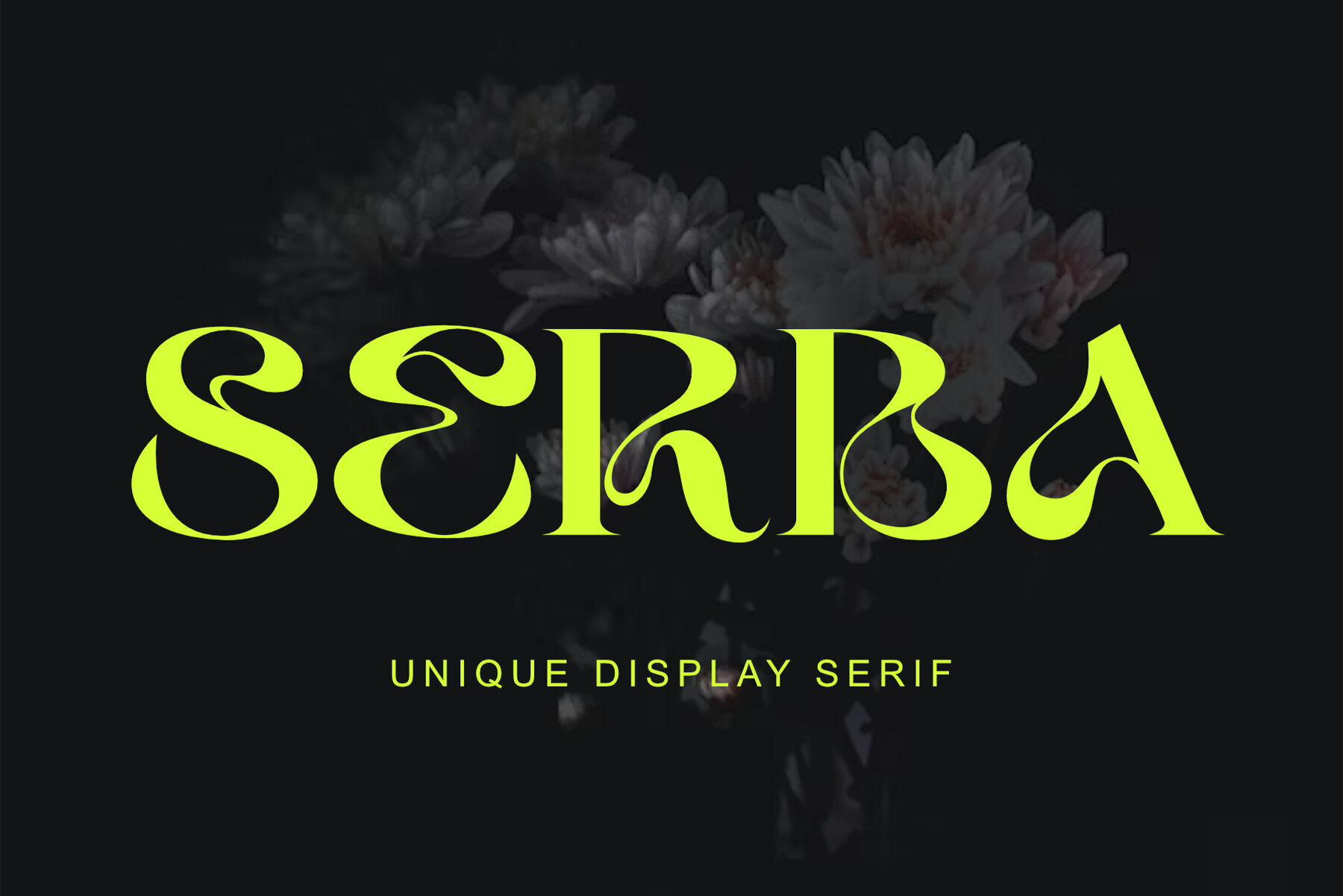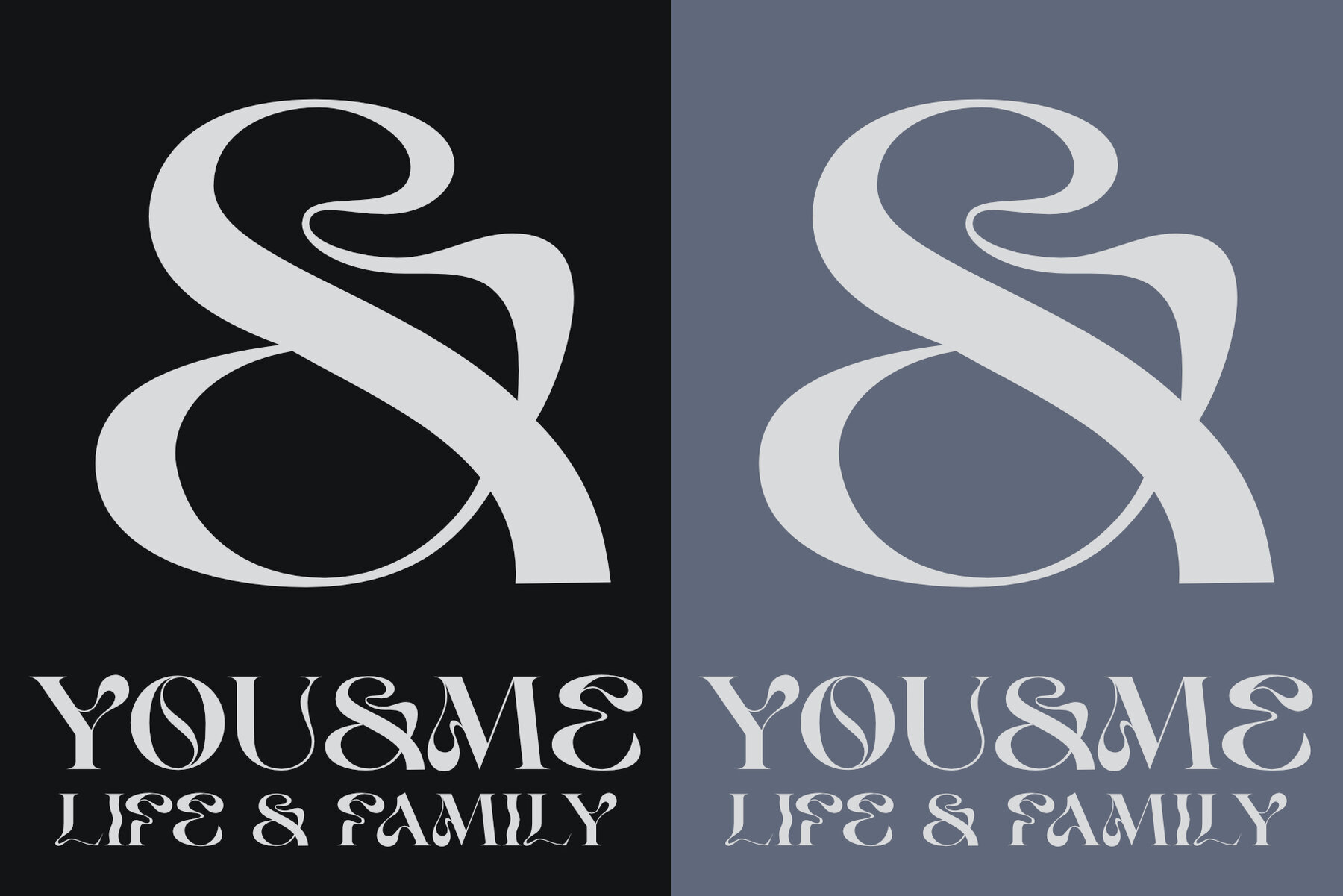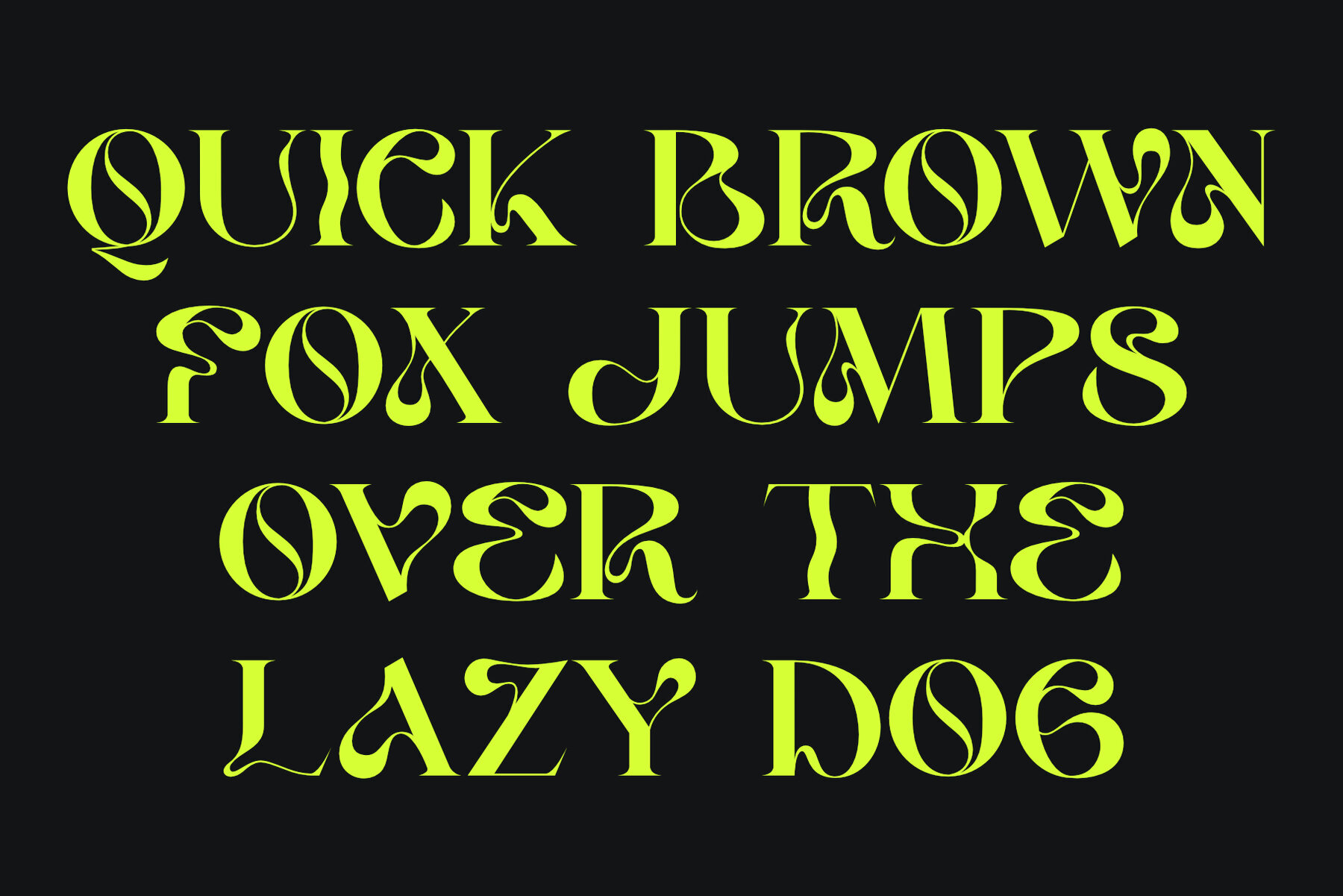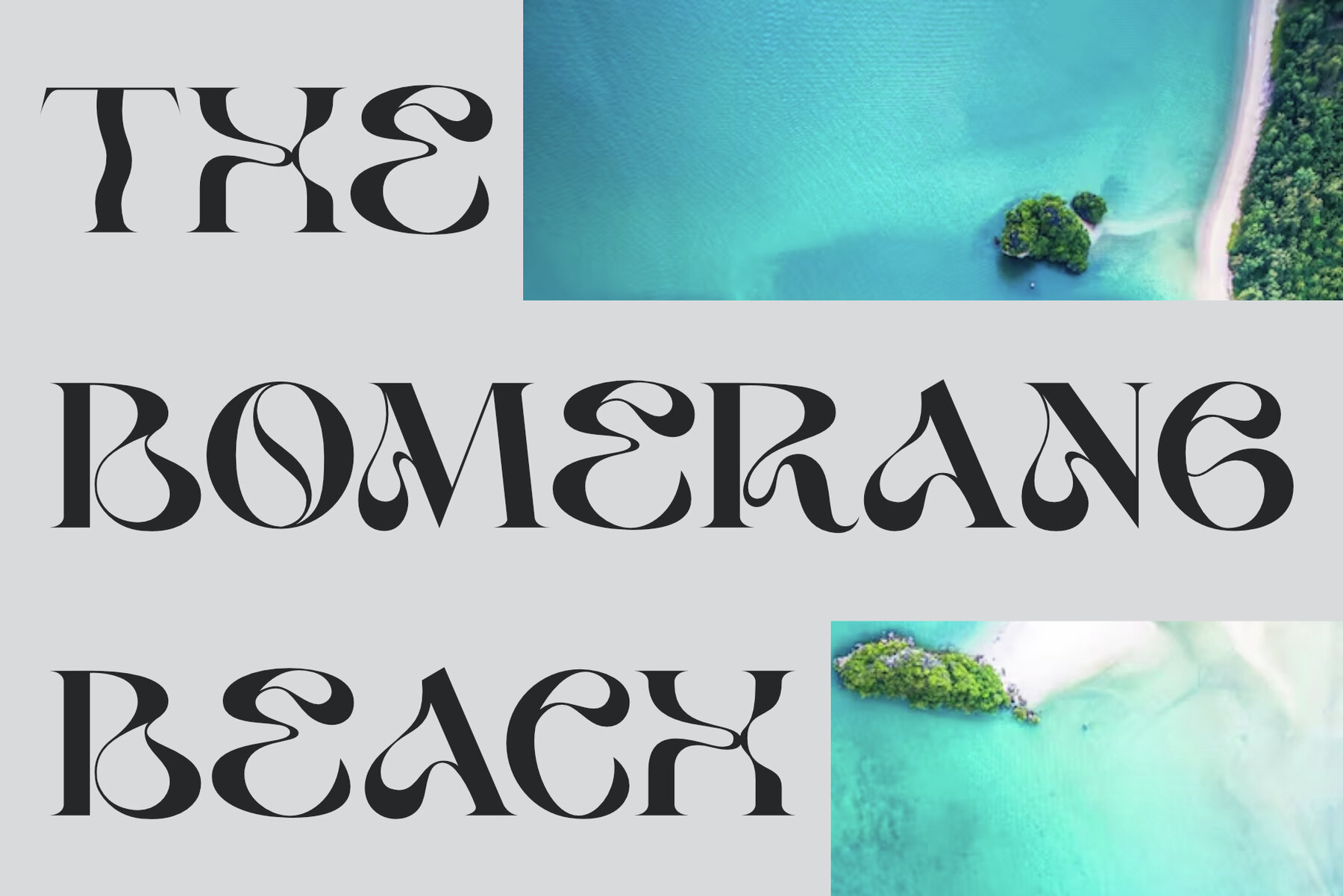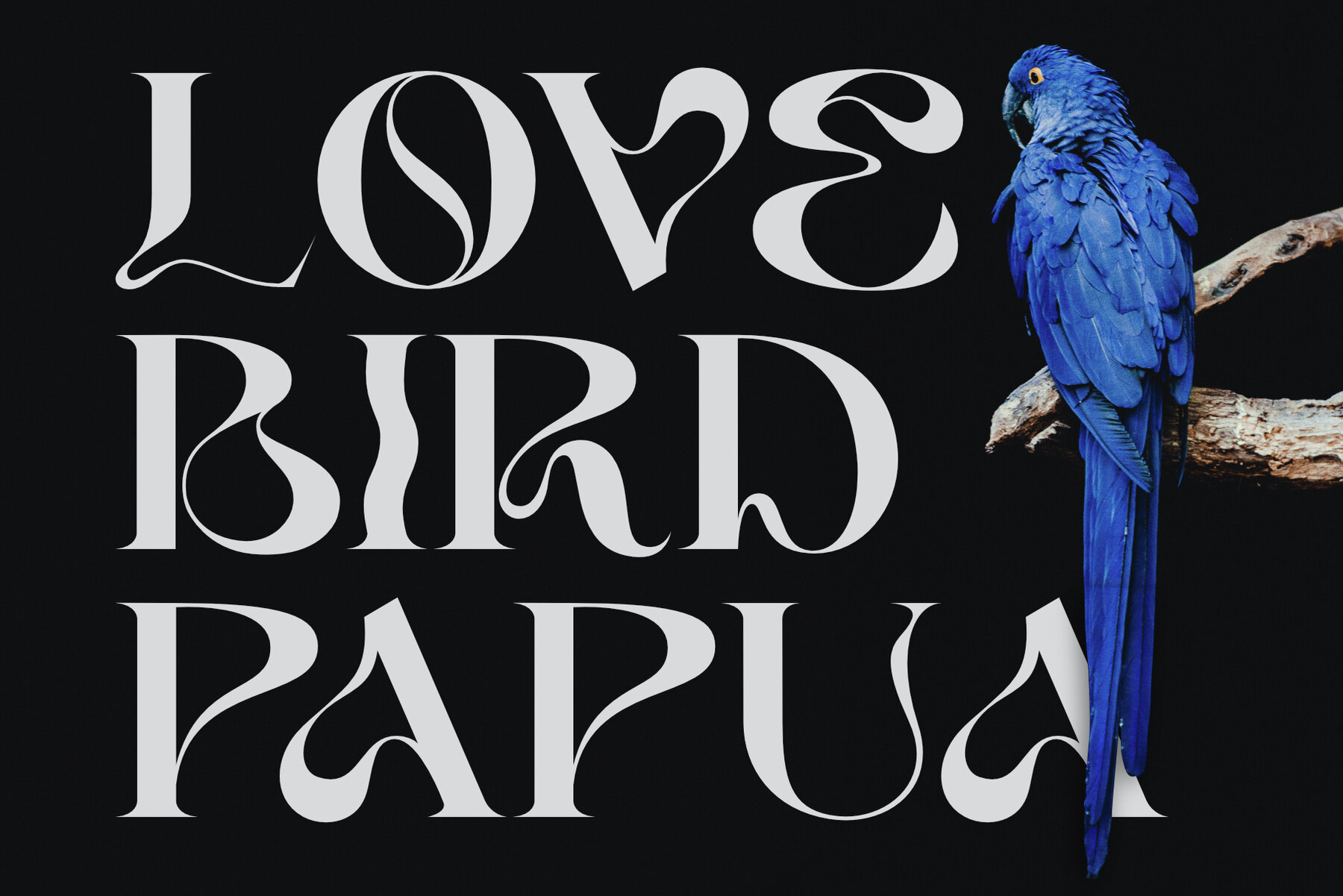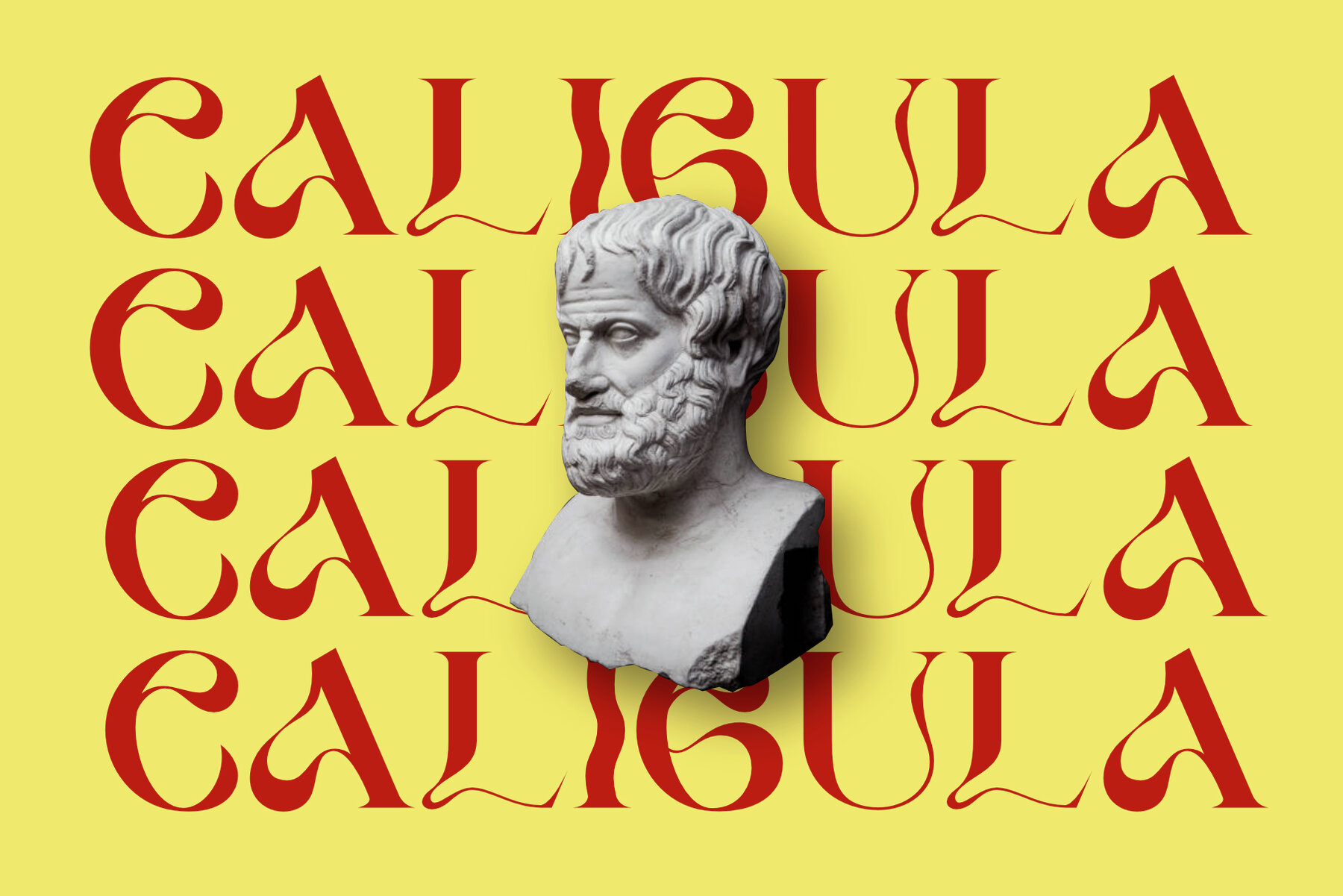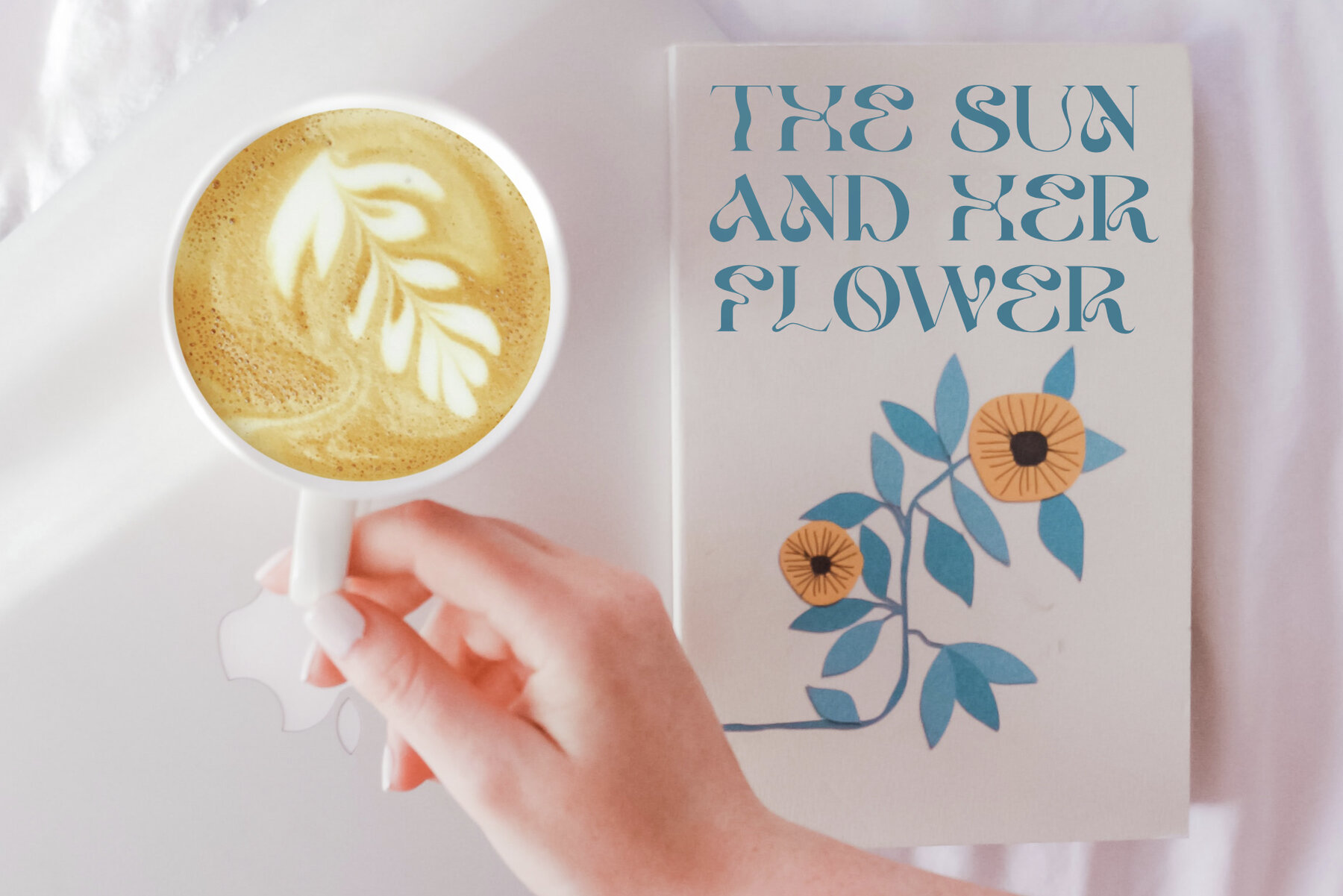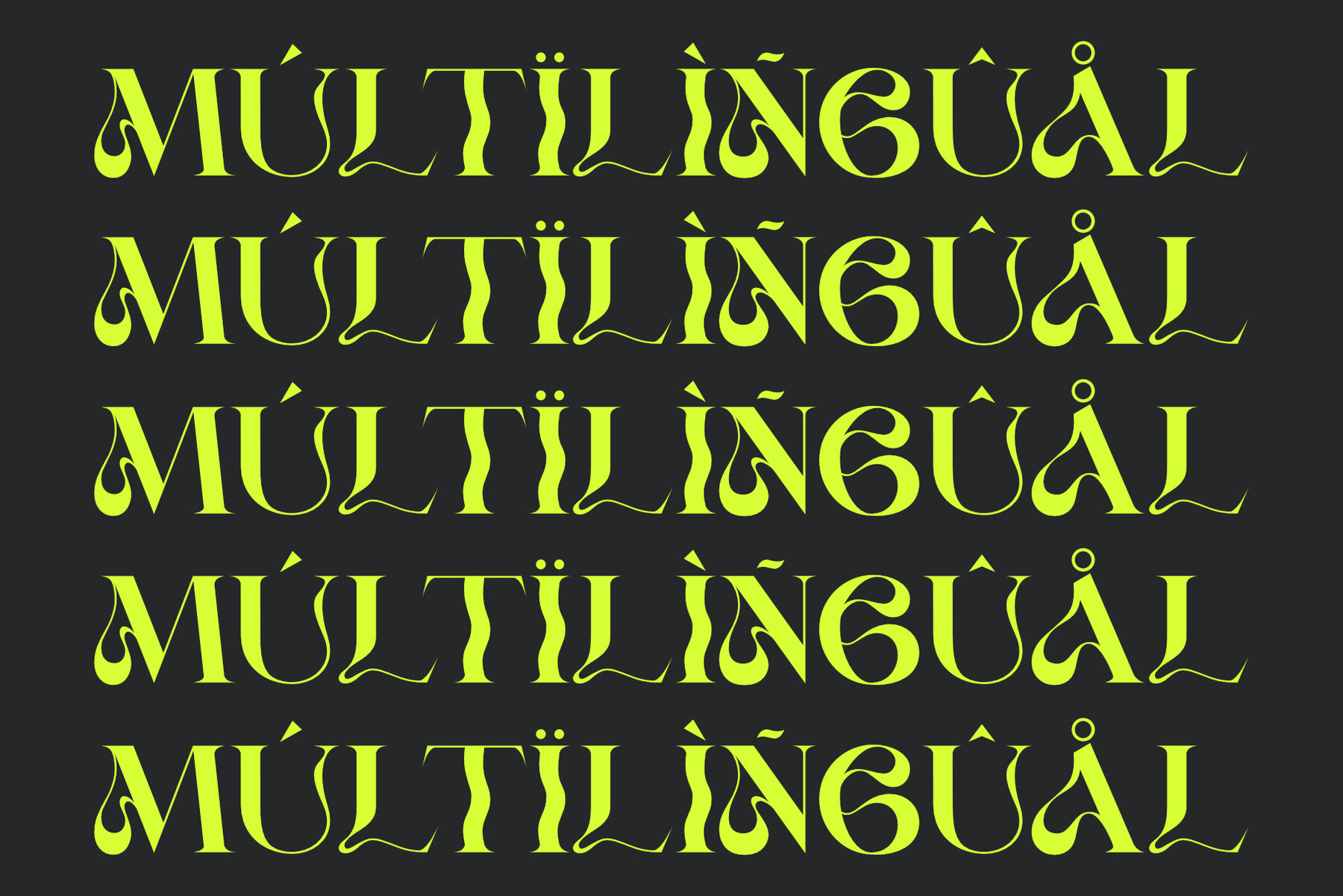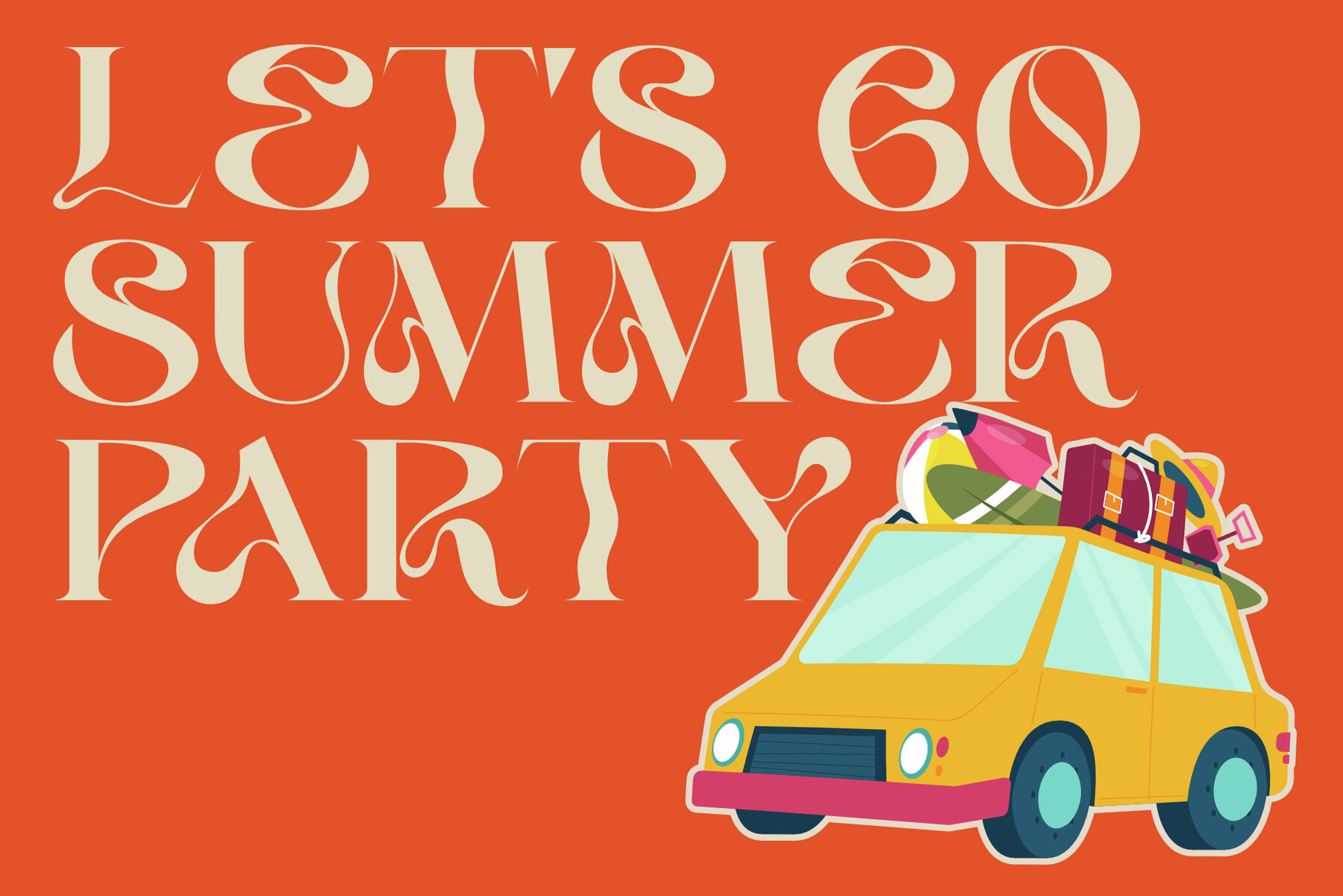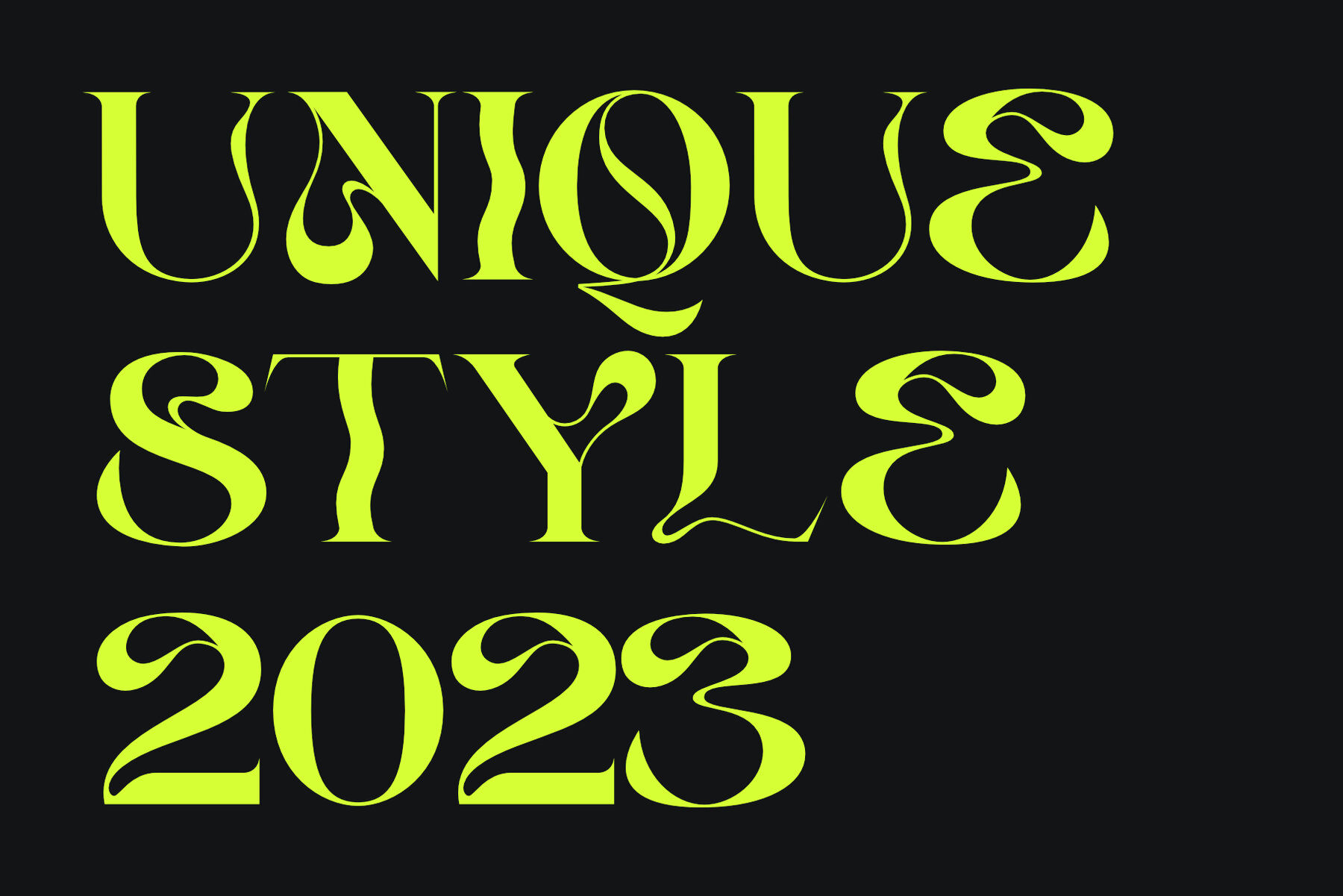
Serba Font
Serba Regular
Serba offers a distinctive and playful take on serif typography. Its modern aesthetic makes it an ideal choice for pairing with traditional serif or sans-serif fonts. Whether for mastheads, posters, or business identity, Serba adds a touch of character to any design.Serba: A Fun and Unique Serif Display